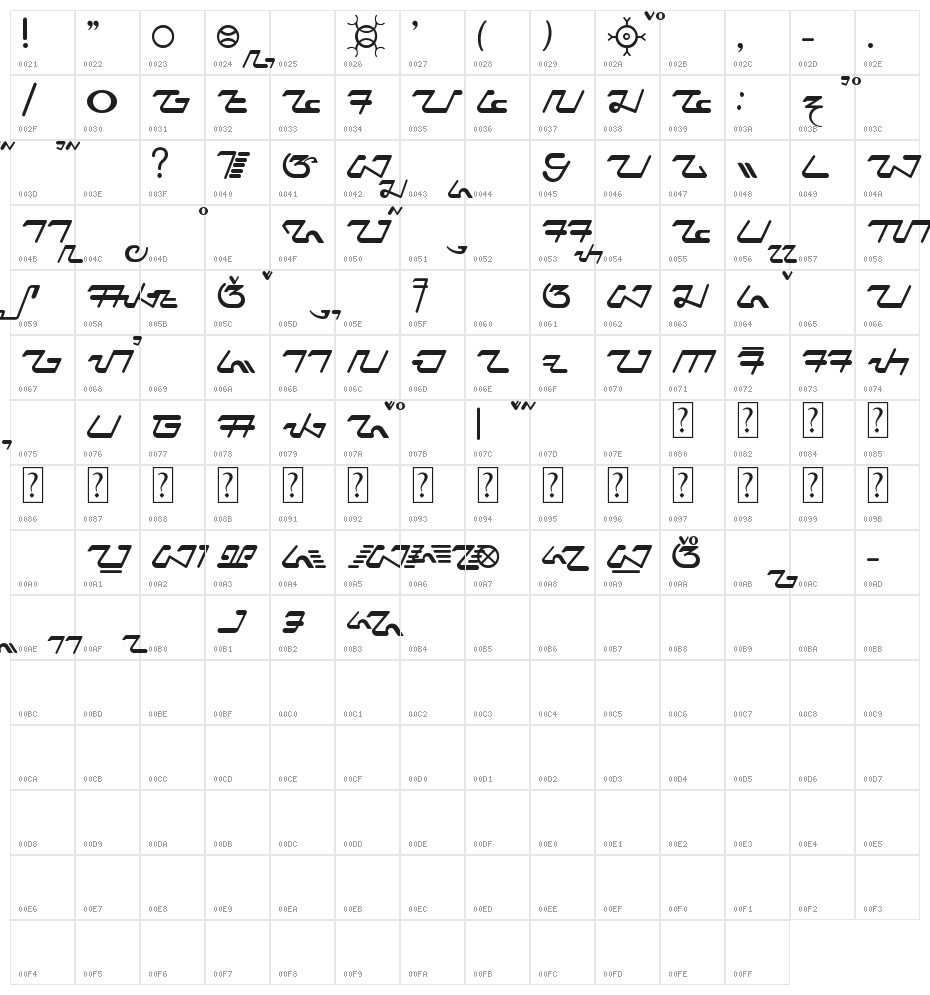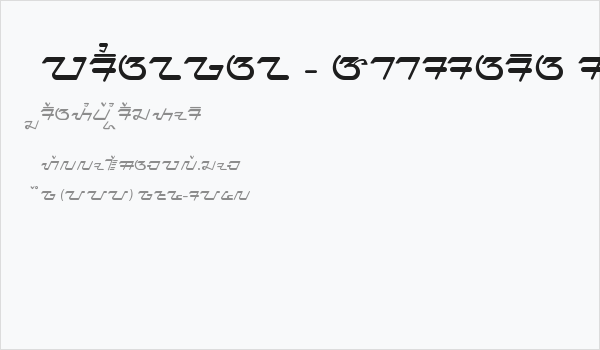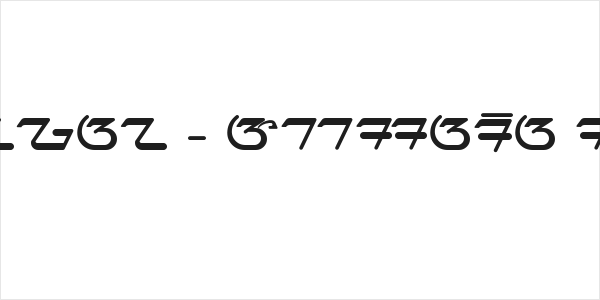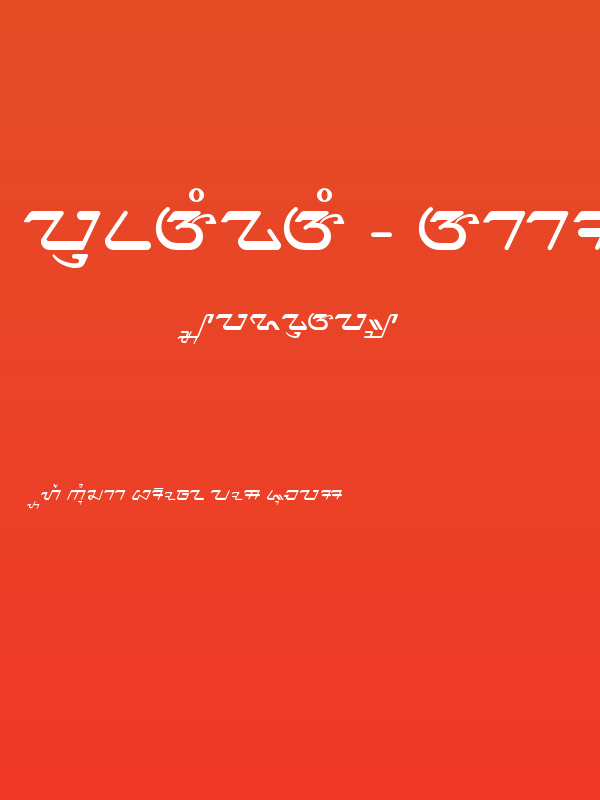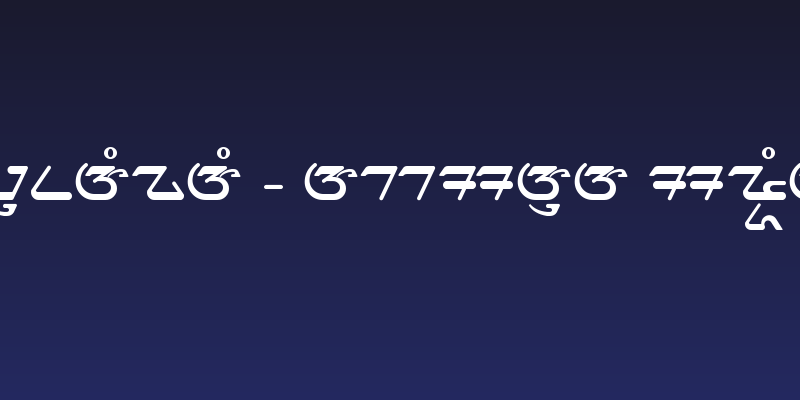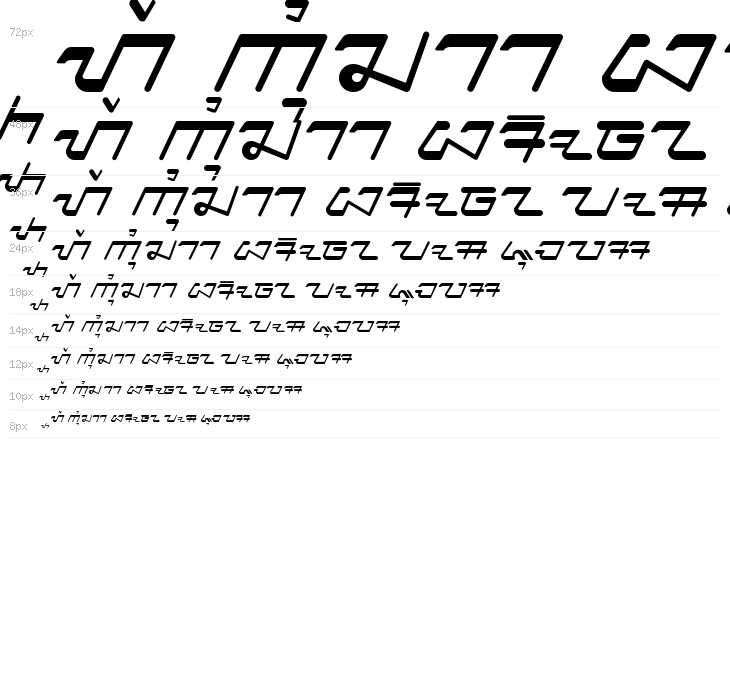
Priangan - Aksara Sunda Font
Priangan - Aksara Sunda Description
This font is a representation of the traditional Sundanese script, characterized by its unique and intricate letterforms. The script features a series of curved and angular strokes, creating a rhythmic and flowing appearance. Each character is distinct, with a balance of open and closed spaces that enhance readability while maintaining an artistic flair. The font includes a variety of special characters that complement the alphabet, adding to its versatility. The overall design is both historical and decorative, making it suitable for projects that require a cultural or traditional touch.
Parahyangan
Overall StyleTraditional, Decorative
Use CaseLogos, Cultural projects, Educational materials
Proposed ProjectsIdeal for cultural projects, traditional artwork, educational materials on Sundanese language, or decorative purposes in design.